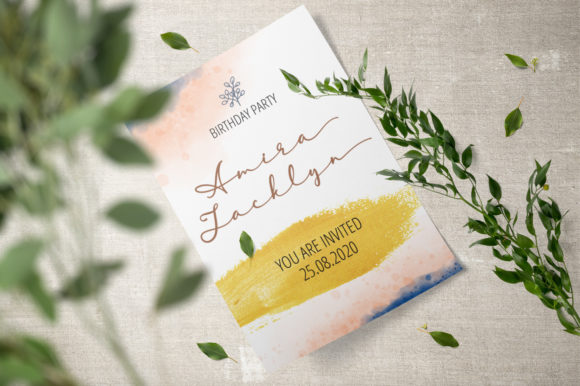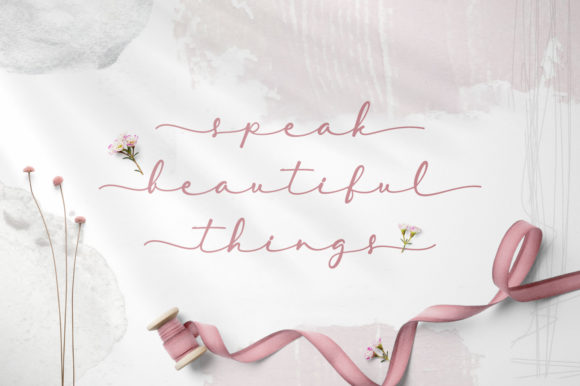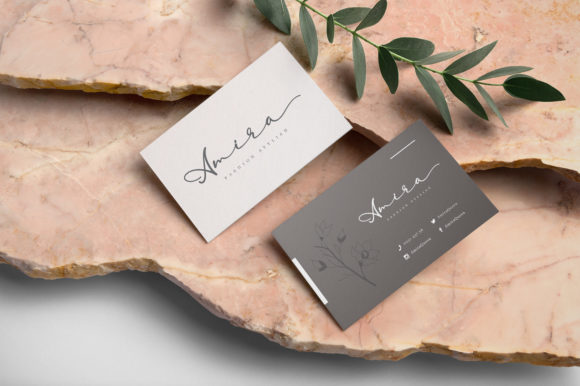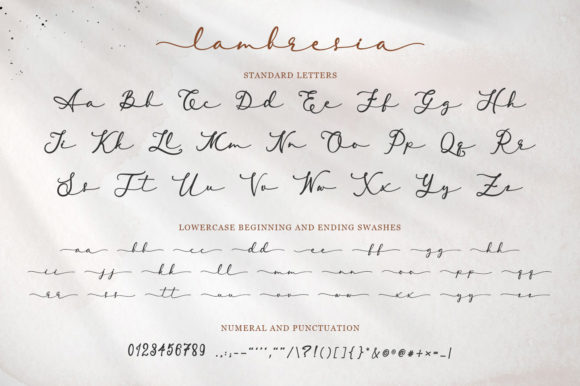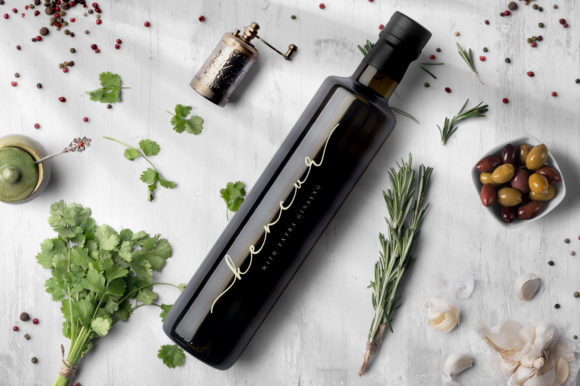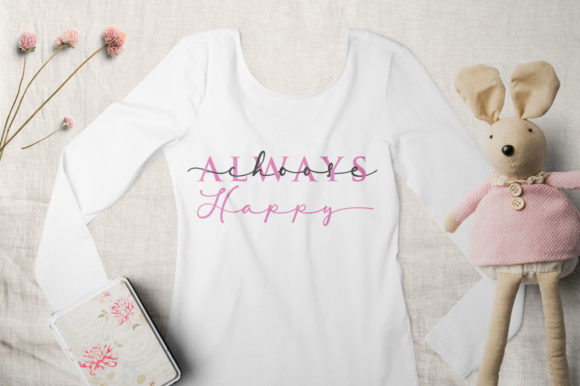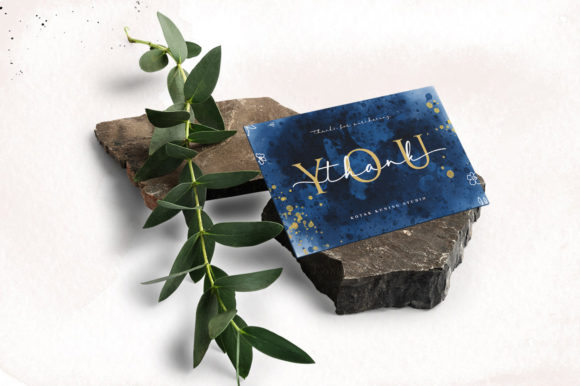
HomeScript FontsLambresia Font Script Fonts Lambresia Font FacebookXPinterestWhatsApp Lambresia Font Poster 2 Lambresia Font Poster 3 Lambresia Font Poster 4 Lambresia Font Poster 5 Lambresia Font Poster 6 Lambresia Font Poster 7 Lambresia Font Poster 8 About Lambresia Font Lambresia is a cool and charming script with a unique feel. Fall in love with its authentic charm! DOWNLOAD ON CREATIVE FABRICAThis font is sold and delivered by Creative Fabrica. Font Canyon may earn a commission if you buy through this link. People also explored Stellaris Font Bayttrun Script Font Modern Font Aiama Font Hamburger Font Kathia Script Font Ultimate Battle Font Night Gaidy Font Logoflate Font 452 0 TagsLambresia Font Previous articleGirlz in Hell FontNext articleLibrush Font LEAVE A REPLY Cancel reply Comment: Please enter your comment! Name:* Please enter your name here Email:* You have entered an incorrect email address! Please enter your email address here Website: Save my name, email, and website in this browser for the next time I comment. Personal Use Free Monogram Calligraphy Personal Use Free Read more about this font Burnstown Dam Personal Use Free Read more about this font Super Bubbly Font Personal Use Free Read more about this font Bellarin Personal Use Free Read more about this font BLOG Best Fonts for T-Shirt Design – Top 2025 Picks In 2025, t-shirt design has become more than just fashion—it's a form of self-expression. Whether you're... Top 10 Handwritten Fonts That Elevate Your Designs 5 Fonts That Will Dominate Design Trends in 2026 Elegant Wedding Invitation Fonts – Handwritten & Script Fonts